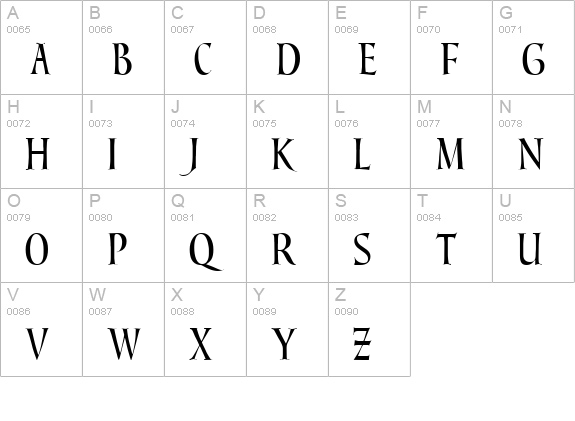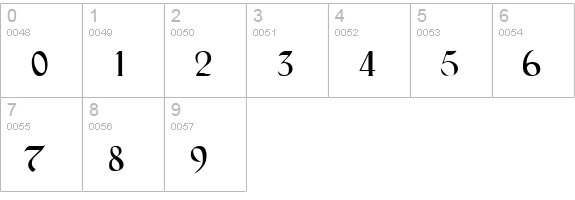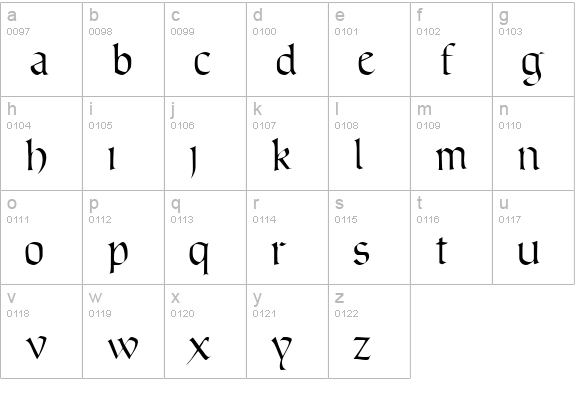
Lombardic Narrow Font Details
Lombardic Narrow is a distinctive, condensed-width variant in the Lombardic typeface family \xE2\x80\x94 well suited to design and typography projects.
The Lombardic Narrow font is a refined and elegant typeface that exudes a sense of sophistication and timeless charm. With its slender and elongated letterforms, this font is perfect for creating a sense of luxury and exclusivity in your designs. The intricate detailing and graceful curves of the Lombardic Narrow font make it a versatile choice for a wide range of projects, from branding and packaging to editorial design and invitations. Best of all, the Lombardic Narrow font is available for free download at FontsMarket.com. Whether you're a seasoned designer looking to add a touch of class to your work or a beginner experimenting with different typefaces, the Lombardic Narrow font is sure to elevate your designs and leave a lasting impression. Don't miss out on this opportunity to enhance your projects with this exquisite font - download it for free today at FontsMarket.com!